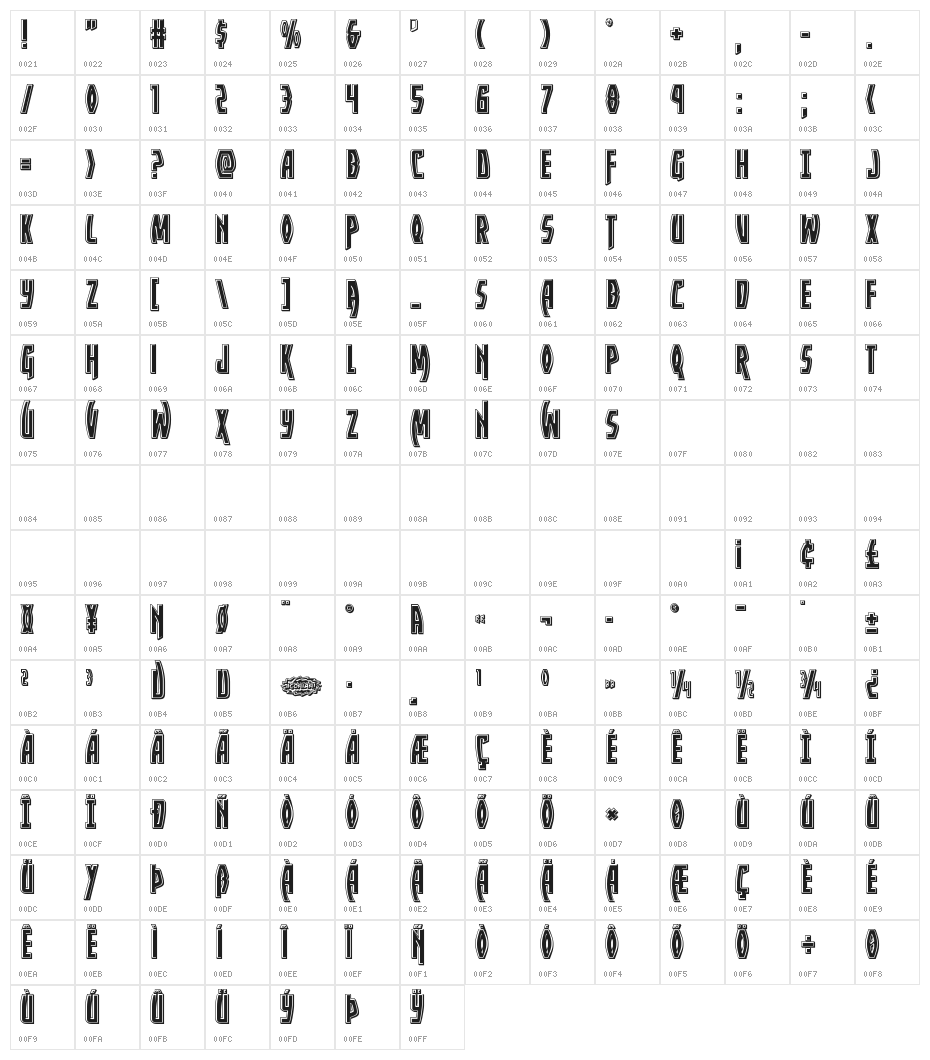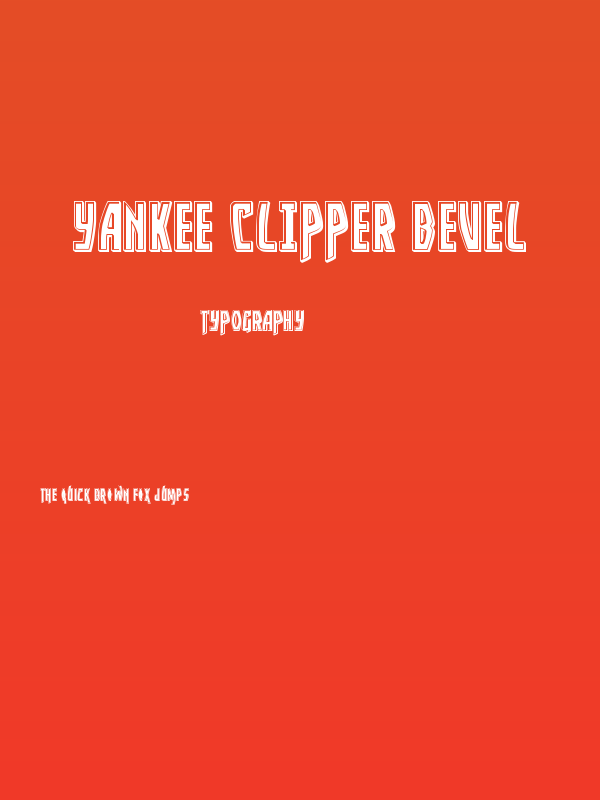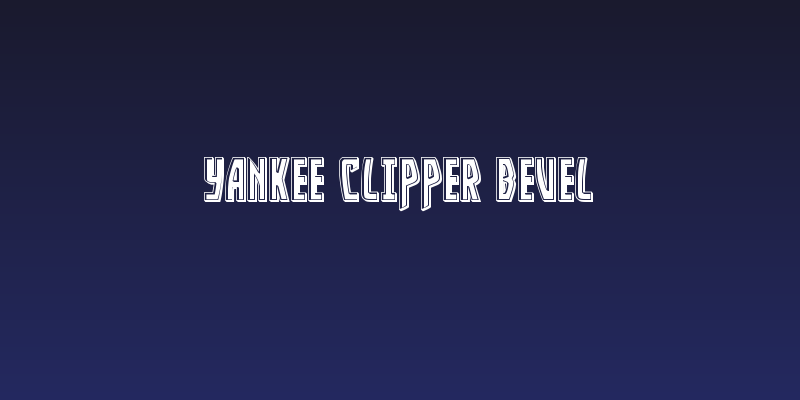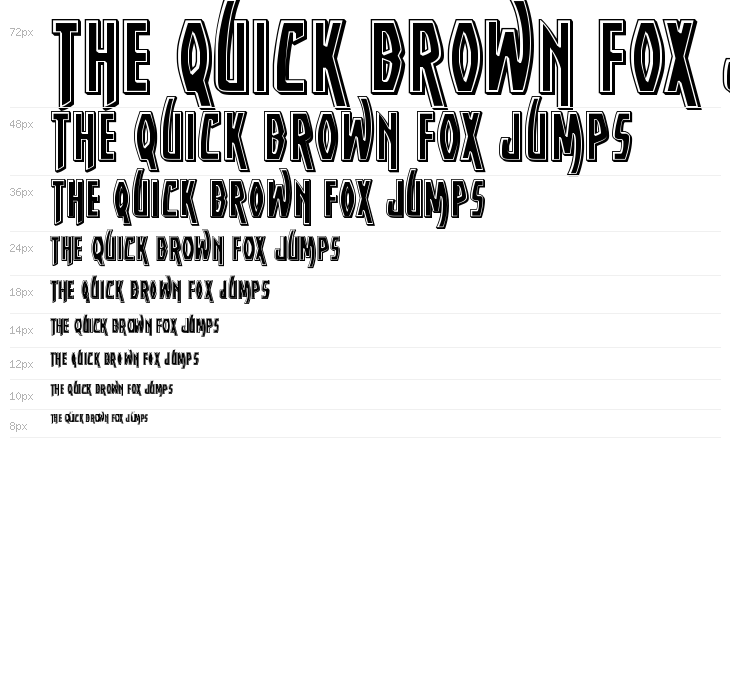
Yankee Clipper Bevel Font
Yankee Clipper Bevel Description
This font features a bold and dynamic design with a distinct beveled edge, giving it a three-dimensional appearance. The characters are uppercase and lowercase, with numerals and a variety of special symbols. The style is highly decorative, with each letter having a strong presence and a unique angularity that adds to its visual impact. The bold outlines and sharp angles make it stand out, making it suitable for attention-grabbing headlines or titles. The font's design is reminiscent of vintage signage, yet it maintains a modern flair with its clean lines and structured form.
| Overall Style | Vintage, Modern |
| Proposed Projects | Ideal for posters, logos, branding, and any project requiring a strong visual impact. |